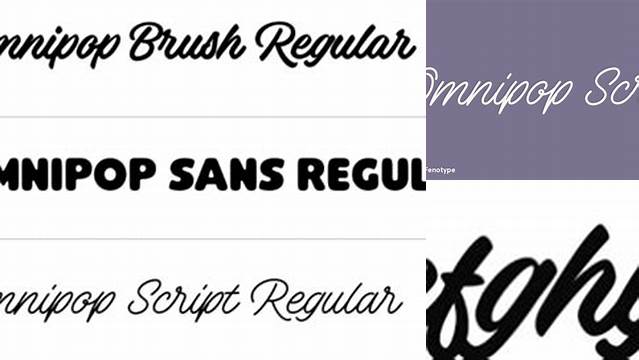
Hey everyone! Today, we're diving headfirst into the awesome world of fonts, and specifically, the Omnipop Brush Regular font! If you're looking for a stylish, handwritten-style font to spice up your designs, you're in the right place. We're going to talk about how you can get the Omnipop Brush Regular font free download, what makes this font so cool, and how you can use it to make your projects pop. So, buckle up, because we're about to embark on a font-tastic journey! This article is your ultimate guide to everything Omnipop Brush Regular. We'll explore its features, its ideal uses, and, most importantly, how to get your hands on it without spending a dime. Ready to elevate your designs? Let's get started!
Omnipop Brush Regular: What's the Hype About?
Alright, let's get down to brass tacks: what's the deal with the Omnipop Brush Regular font? Well, guys, it's all about that authentic, hand-drawn vibe. Imagine a font that looks like it was crafted with a real brush and ink, adding a personal touch to any design. That's Omnipop Brush Regular in a nutshell! It's got those slightly imperfect strokes, those subtle variations in thickness, and that overall feel of being handmade. This isn't your run-of-the-mill, sterile computer font; it's got personality! The Omnipop Brush Regular font is perfect for projects where you want to create a sense of warmth, approachability, and creativity. Think about branding for small businesses, social media graphics, invitations, posters, and even website headers. The possibilities are practically endless!
But it's not just about aesthetics. The Omnipop Brush Regular font is also incredibly versatile. It's legible enough for headlines and short bursts of text, but it also has a certain flair that makes it stand out. It's the kind of font that can make a design feel both modern and vintage, depending on how you use it. You can pair it with clean, sans-serif fonts for a striking contrast, or use it alongside more textured fonts for a layered, organic look. The key is to experiment and see what works best for your project. Trust me, it's a fun process. So, if you're ready to add a touch of hand-drawn charm to your designs, the Omnipop Brush Regular font is definitely worth a look. It's a fantastic choice for anyone who wants to inject a bit of personality and uniqueness into their work. And remember, you can get this awesome font for free! Keep reading to find out how.
Key Features of Omnipop Brush Regular
Let's delve a bit deeper into what makes the Omnipop Brush Regular font so special. It's not just about the general aesthetic; there are specific features that contribute to its overall appeal. First off, the brush strokes are intentionally designed to look natural and slightly irregular. This imperfection is a key element, giving the font its authentic, hand-crafted feel. Every letter has a unique character, avoiding the robotic uniformity that can be found in other fonts. This is what makes the Omnipop Brush Regular font so expressive.
Secondly, the font typically includes a good range of characters, covering basic Latin alphabets and numbers. Some versions also include special characters and ligatures, which are combinations of letters designed to flow together seamlessly. Ligatures can add a subtle touch of elegance and visual interest to your text. Keep an eye out for these; they can really elevate the look of your design! Another important feature is the font's legibility. While it has a brush-style aesthetic, it's generally designed to be readable, even at smaller sizes (within reason, of course). You want people to be able to read your text without having to squint! Finally, the Omnipop Brush Regular font often comes in different weights, such as regular and bold. This allows you to create a visual hierarchy in your design. You can use the bolder weight for headlines and the regular weight for body text, making your content easier to scan and understand. This versatility makes Omnipop Brush Regular a powerful tool for designers of all types. So, when you are considering the Omnipop Brush Regular font free download, always consider these crucial features.
What Makes Omnipop Brush Regular Stand Out?
Alright, let's be real: there are tons of fonts out there. So, what makes the Omnipop Brush Regular font stand out from the crowd? Well, first and foremost, it's the overall aesthetic. The hand-drawn brush style is a timeless look that adds a personal touch that is often missing from more generic fonts. It's the perfect choice if you are trying to communicate a sense of creativity, authenticity, and approachability. This is particularly valuable if you are a brand trying to connect with a target audience on an emotional level.
Secondly, the Omnipop Brush Regular font is incredibly versatile. It can be used in a variety of different contexts, from logos and branding materials to social media posts and website headers. It works well for both digital and print projects, giving you maximum flexibility. The font's unique character allows it to pair well with other types of fonts. You can combine it with a clean sans-serif font to create a visually appealing contrast. You can also layer it with other textured fonts for a more organic and artistic look. This means that you are not limited to how you use it and gives you more design flexibility. Another factor that makes the Omnipop Brush Regular font stand out is the attention to detail. Designers often take great care to ensure that each letter has its own unique character, avoiding the cookie-cutter appearance that can be found in other fonts. This adds to the font's overall charm and makes it feel more human and less machine-like. Finally, the fact that you can find the Omnipop Brush Regular font free download adds to its appeal. It allows you to experiment with the font and see if it's the right fit for your project without any financial risk. This accessibility makes it a great choice for both amateur and professional designers.